YES, NO, DON'T KNOW
Abyme · Paul Elliman · 2000
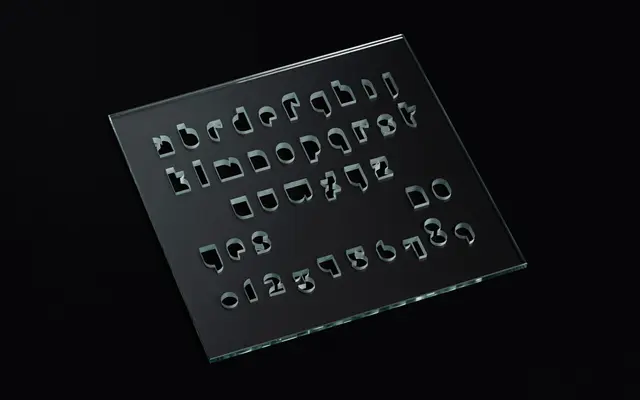
A limited-edition glass panel work by Paul Elliman, adapting Josef Albers's 1926 modular stencil typeface into a Ouija board as a conceptual piece made while Elliman was teaching at Yale.
Paul Elliman developed this piece in the early 2000s from a desire to contact Josef Albers directly, adding the words YES, NO and DON'T KNOW to Albers's original Bauhaus modular stencil design from 1926. The edition takes the form of a 16-inch square glass panel, referencing the glass studio workshops Albers ran at the Bauhaus. It occupies the boundary between typeface, artwork and object rather than functioning as a conventional text face.
Based on a modular stencil typeface designed by Josef Albers in 1926, adapted by Paul Elliman into a limited-edition Ouija board format; its geometric, modular construction places it firmly in the display category.